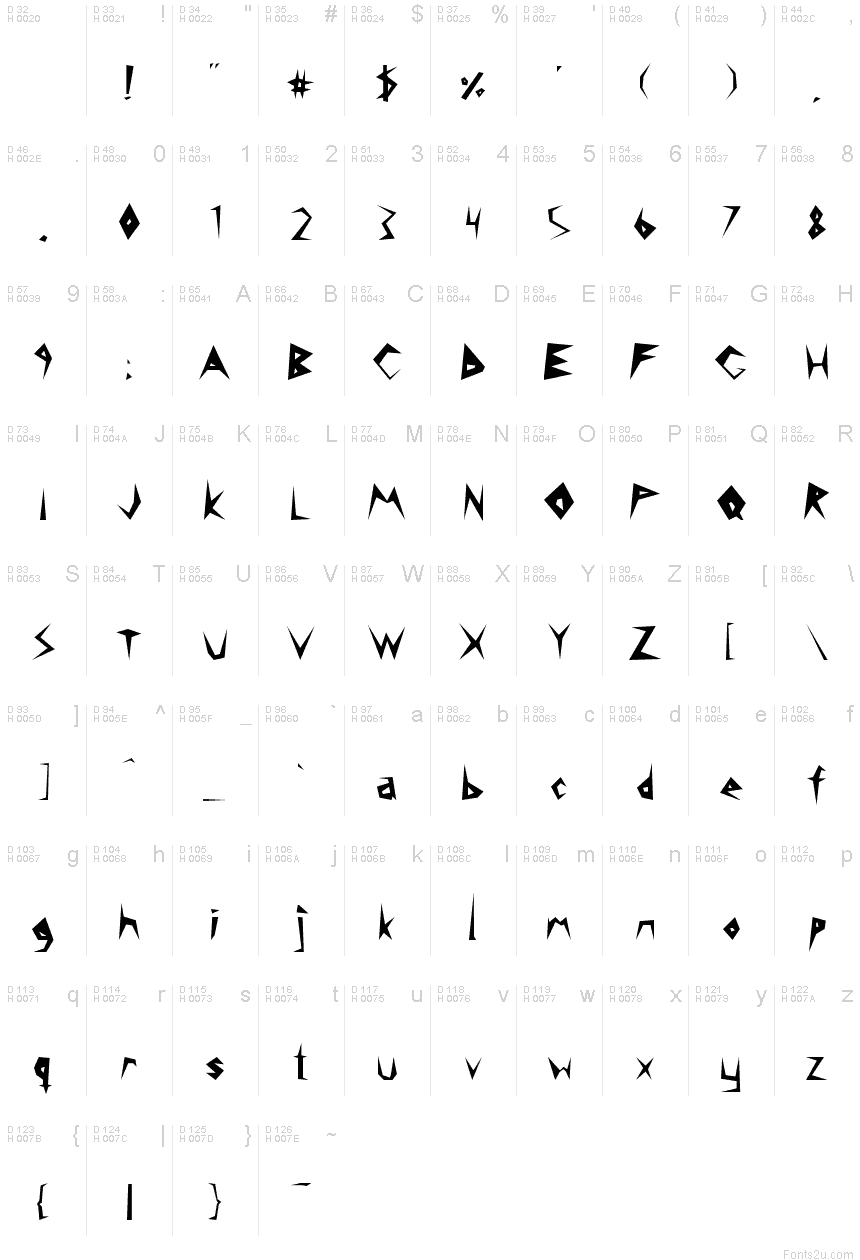
14 minutes sharp
14 minutes Sharp font is a free distorted display typeface in the 14 minutes family, all sliced edges and twisted angles like shards of black glass. The letters feel hurried but intentional, as if carved with a knife—narrow, jagged strokes that snap forward and bend unpredictably. This tension between rhythm and chaos gives it a fierce, kinetic energy that instantly pulls the eye on crowded screens or posters.
Using 14 minutes Sharp, you can push attitude-heavy projects—gig posters, horror titles, underground event flyers, skate or punk branding, album covers, and game logos—into bold, scratchy territory. Because this free font is so wild, it works best in large, punchy headlines while a clean geometric sans handles supporting text. Keep spacing generous to let each spiky form breathe, and let a simple color palette amplify its raw, cut-and-paste feel.